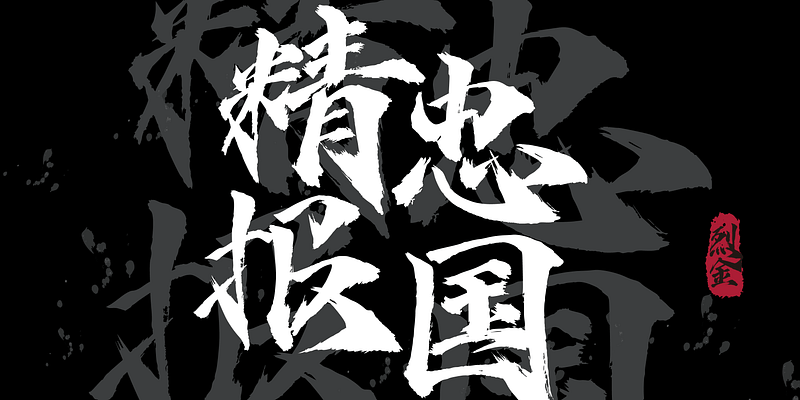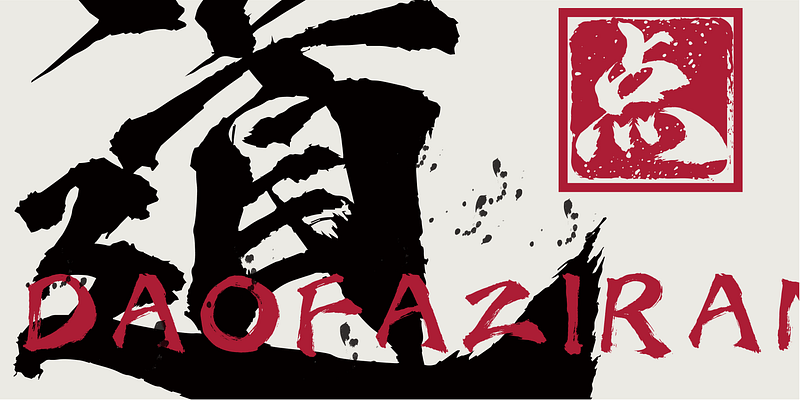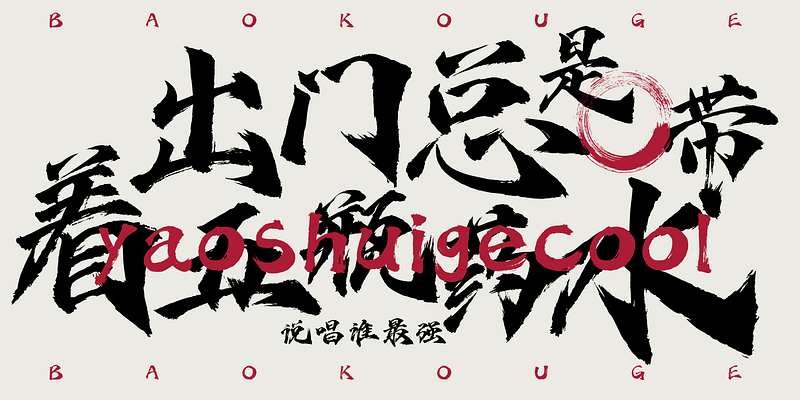
Inspired by the thin gold style of the Emperor Song Huizong ,sharp edge of HelloFont ID LieJinTi is used to increase its strength, supplemented by the strict structure of the Táng Kaǐ, which is more widely applicable and has more visual impact. The main stroke is straight and full of tension.